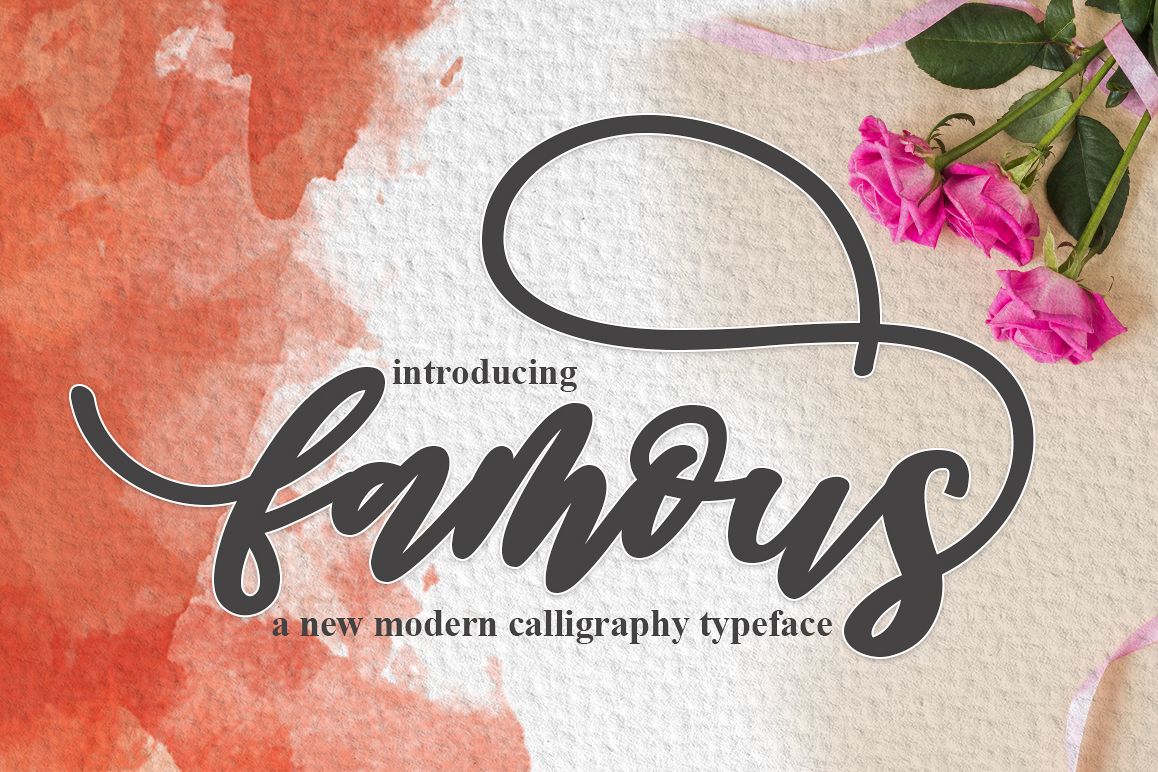
famous script
INTRODUCING
famous Script is a modern calligraphy font with the current handwriting style, this font is perfect for branding, wedding invites, magazines, mugs, business cards, quotes, posters, and more, you can try first if you want to buy this font.